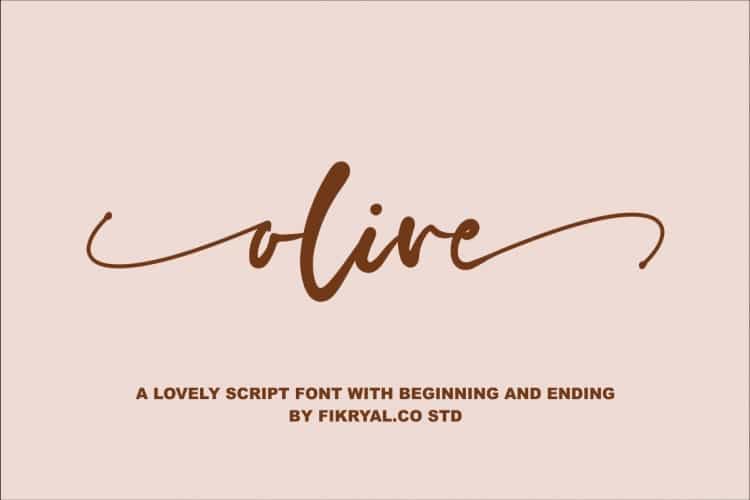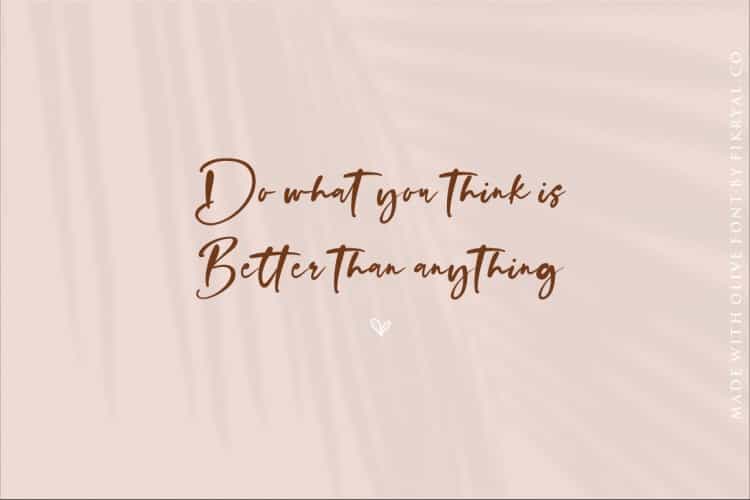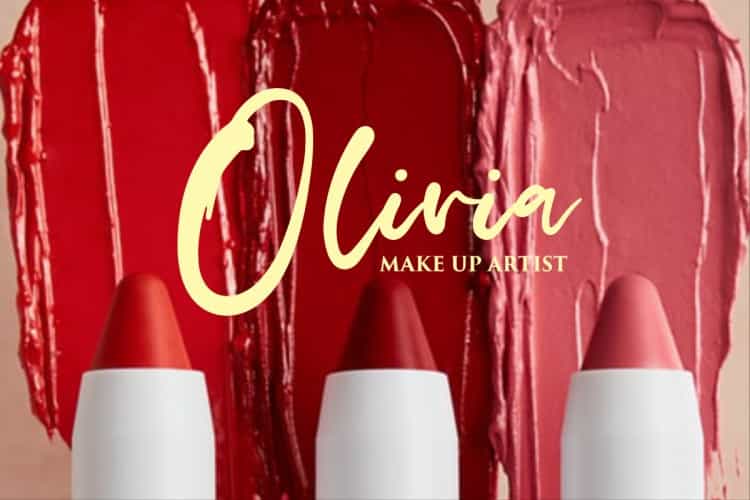
Discover Olive Script Font, part of the Calligraphy Handwritten collection—a versatile and unique font perfect for adding a personal touch to your projects. Download it for free and enjoy crafting designs with style, from invitations to social media posts. This font is available exclusively for personal use, giving you the freedom to create without limits. Unlock your creativity with Olive Script Font today!
Olive Font is a beautiful script font. It is a nice and elegant handwritten font. It is a skinny contemporary calligraphy font that makes it ideal for branding and digital designs. It is a new contemporary & fashionable handwritten font.